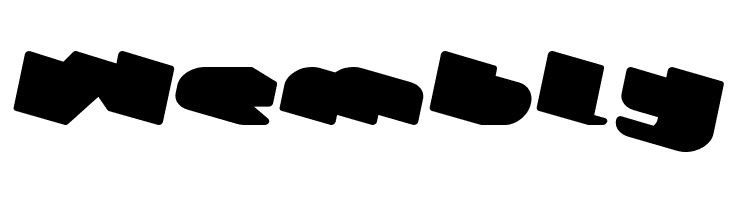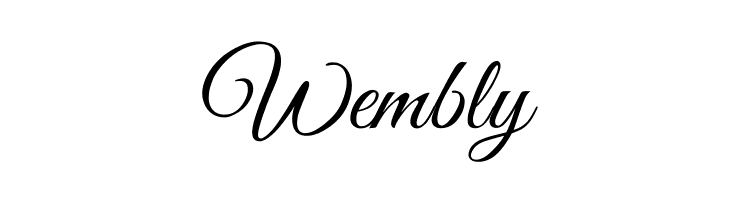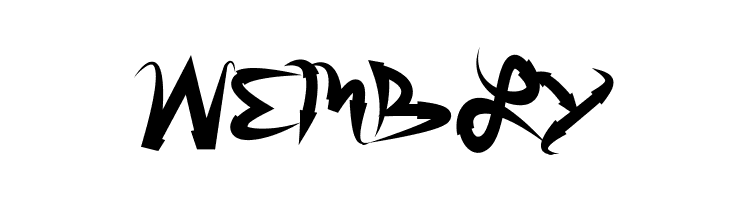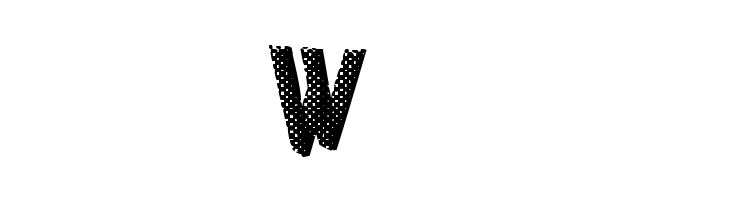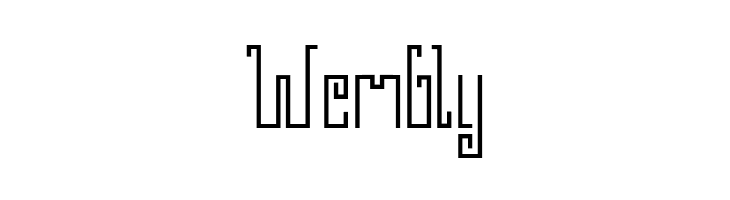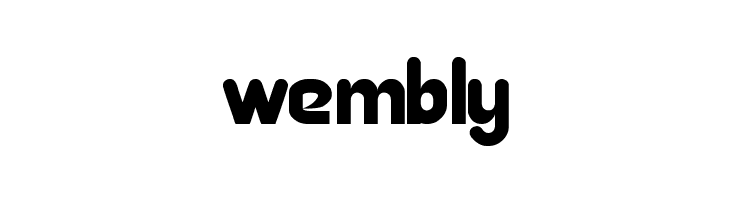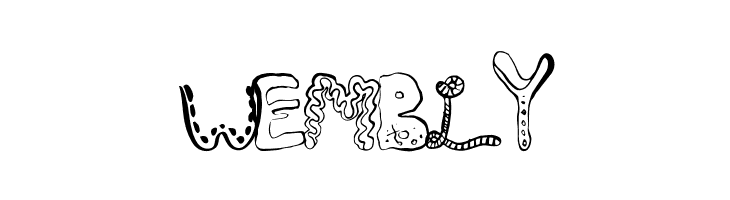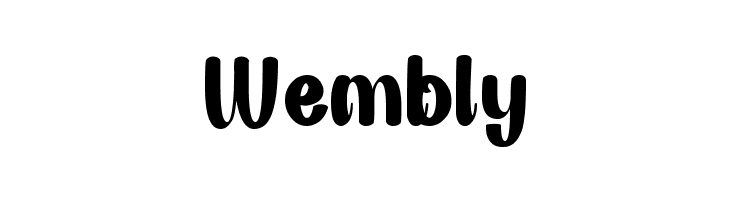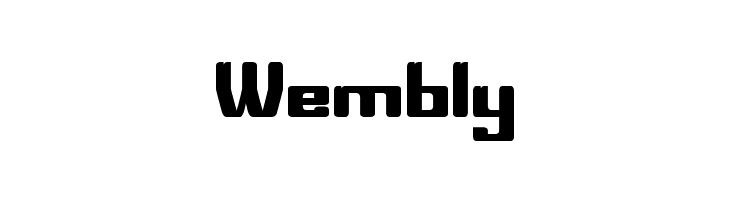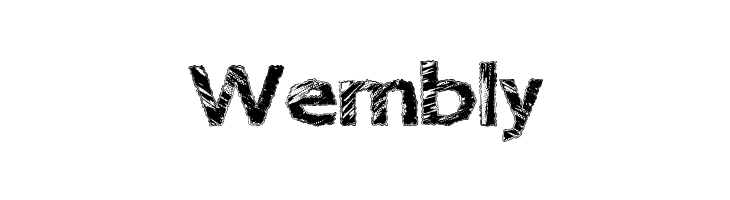
A bold, industrial font with geometric, block-like characters.
A bold, geometric font with a modern, adventurous style.
A bold, playful font with rounded, whimsical characters.
A bold, rounded font with a playful and modern style.
An elegant and flowing script font with ornate, cursive characters.
A bold, dynamic font with sharp, angular strokes and an energetic appearance.
A bold, decorative font with a vintage, distressed texture.
A jagged, bushy font with a wild, untamed appearance.
A bold, playful font with a hand-drawn, informal style.
A bold, shadowed font with a textured, three-dimensional effect.
A bold, geometric font with rounded edges and a modern, blocky style.
A bold, angular font with a modern and dynamic style.
A bold, geometric font with a three-dimensional effect and retro appeal.
A bold, italic, and playful font with a dynamic and chunky style.
A bold, dramatic serif font with sharp, angular features and high contrast.
A playful, hand-drawn font with a casual and friendly appearance.
A bold, textured font with a vintage, hand-drawn appearance.
A playful and eclectic font with unique, artistic letter designs.
A bold, textured font with a 1990s grunge aesthetic.
A bold, dynamic script font with expressive, flowing letterforms.
A bold, decorative font with a retro halftone pattern, perfect for eye-catching designs.
A bold, dynamic font with playful, energetic characters.
A playful, handwritten font with fluid, connected strokes.
A bold, playful font with rounded, dynamic characters.
A decorative Victorian-style font with ornate flourishes and high contrast.
An ornate Victorian-style font with elaborate swashes and classic elegance.
An ornate, Victorian-style font with intricate swashes and decorative elements.
An ornate and decorative font with elegant swirls and flourishes.